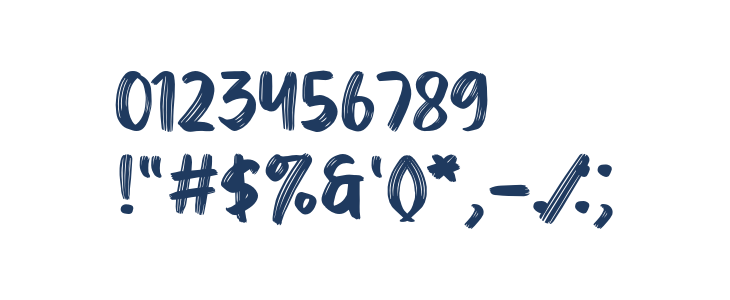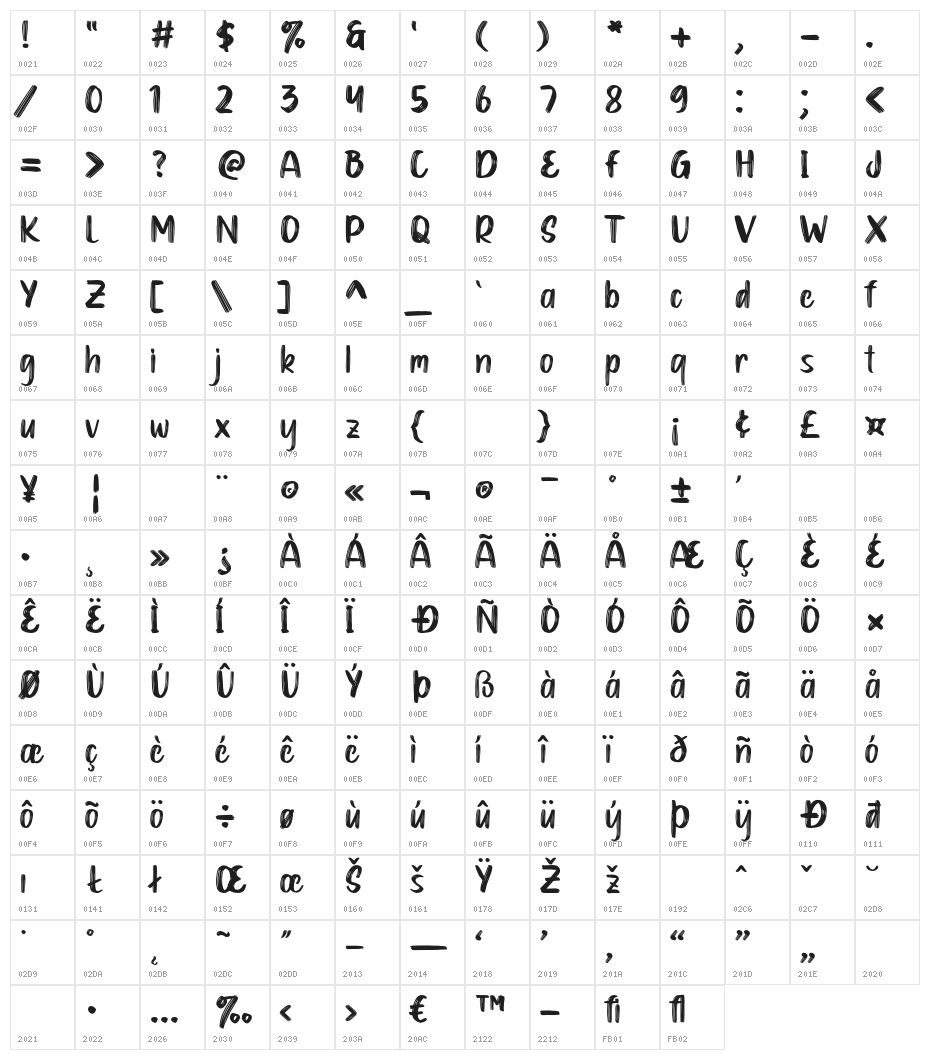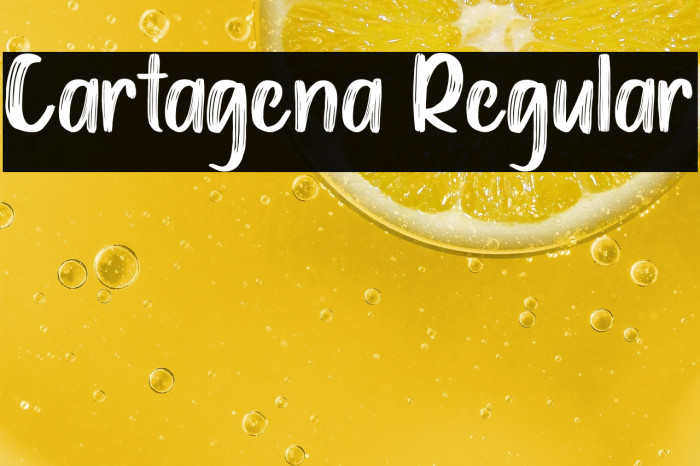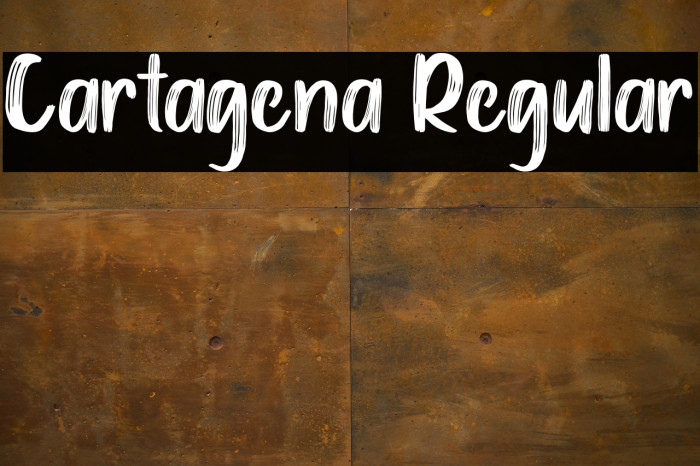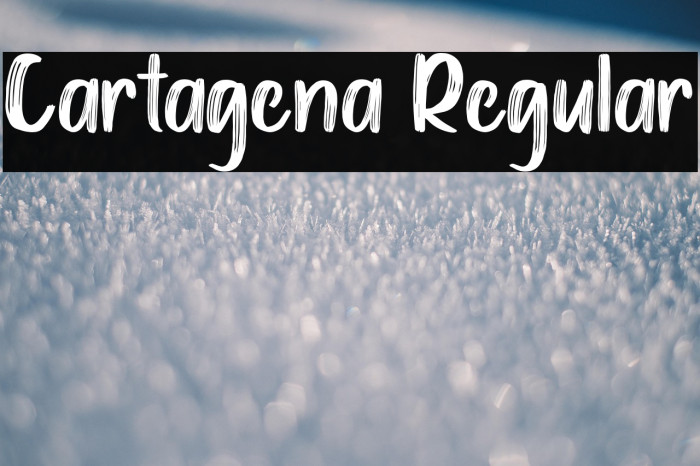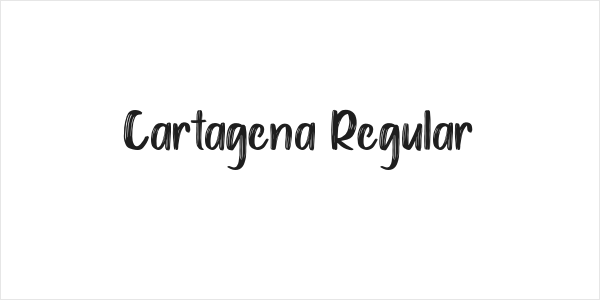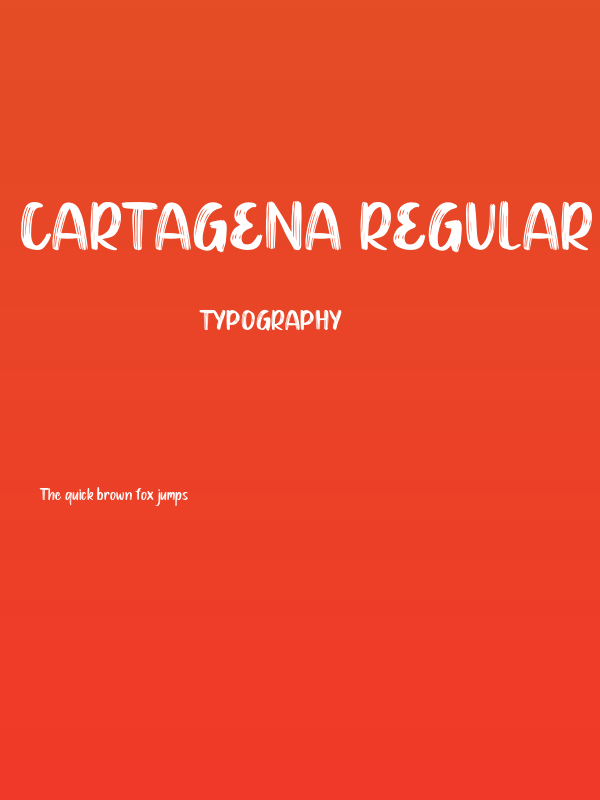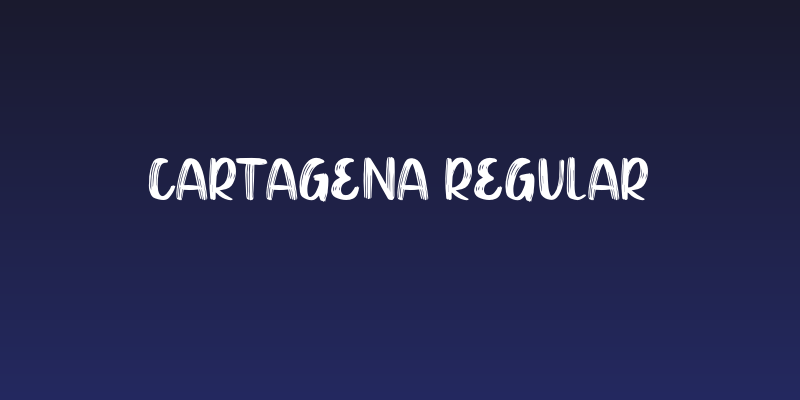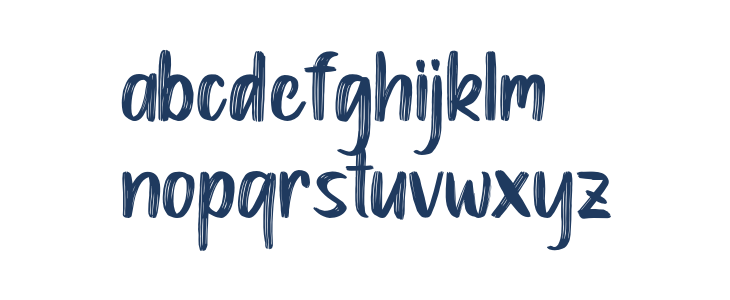
Cartagena Regular Font
Cartagena Regular Description
This font features a bold and expressive handwritten style, characterized by its brush-like strokes and dynamic flow. The letters are slightly irregular, adding a playful and artistic touch. The uppercase and lowercase letters maintain a consistent style, with rounded edges and varying stroke widths that create a sense of movement. The numerals and special characters follow the same aesthetic, ensuring a cohesive look across all text. This font's energetic and informal appearance makes it suitable for creative projects that require a personal and lively touch.
Proposed ProjectsIdeal for branding, posters, invitations, and social media graphics where a personal and artistic flair is desired.